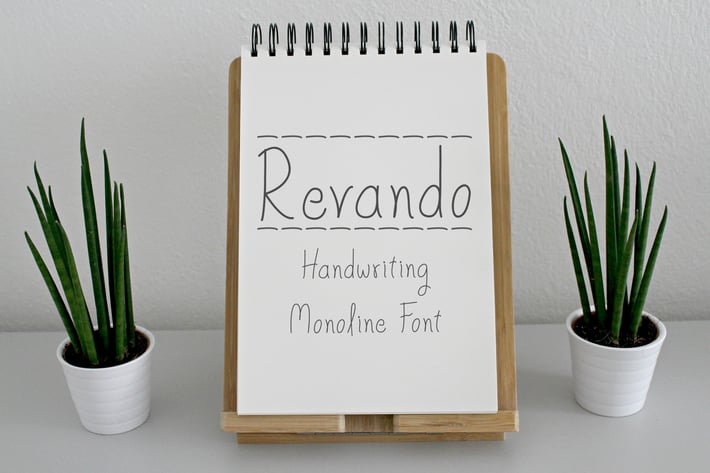
Revando - Handwriting Monoline Font
Revando is new handwritten monoline font with handwriting style clean, easy and simple font.
Included Lowercase, Uppercase, Numbers and Punctuation's.
Supports Basic English (latin) Characters only.